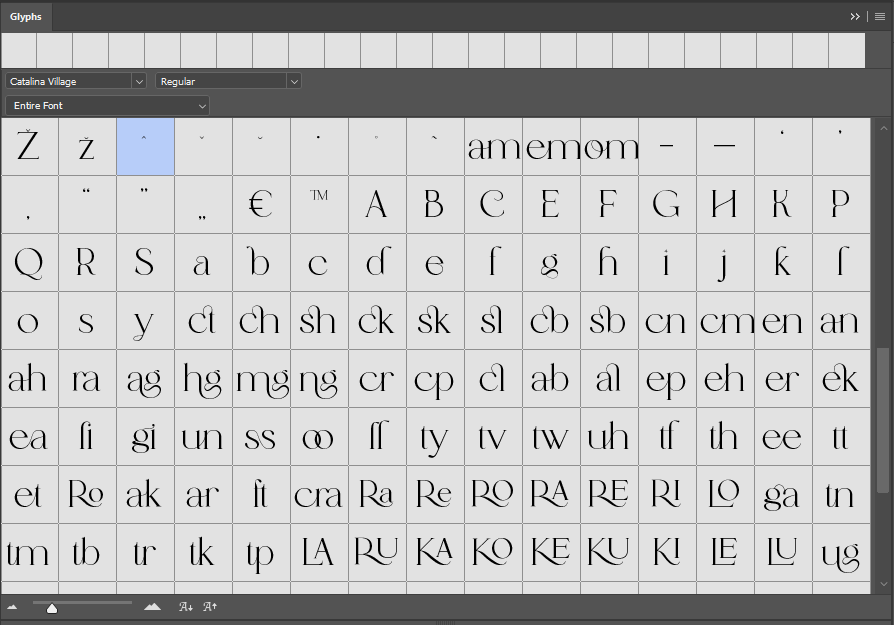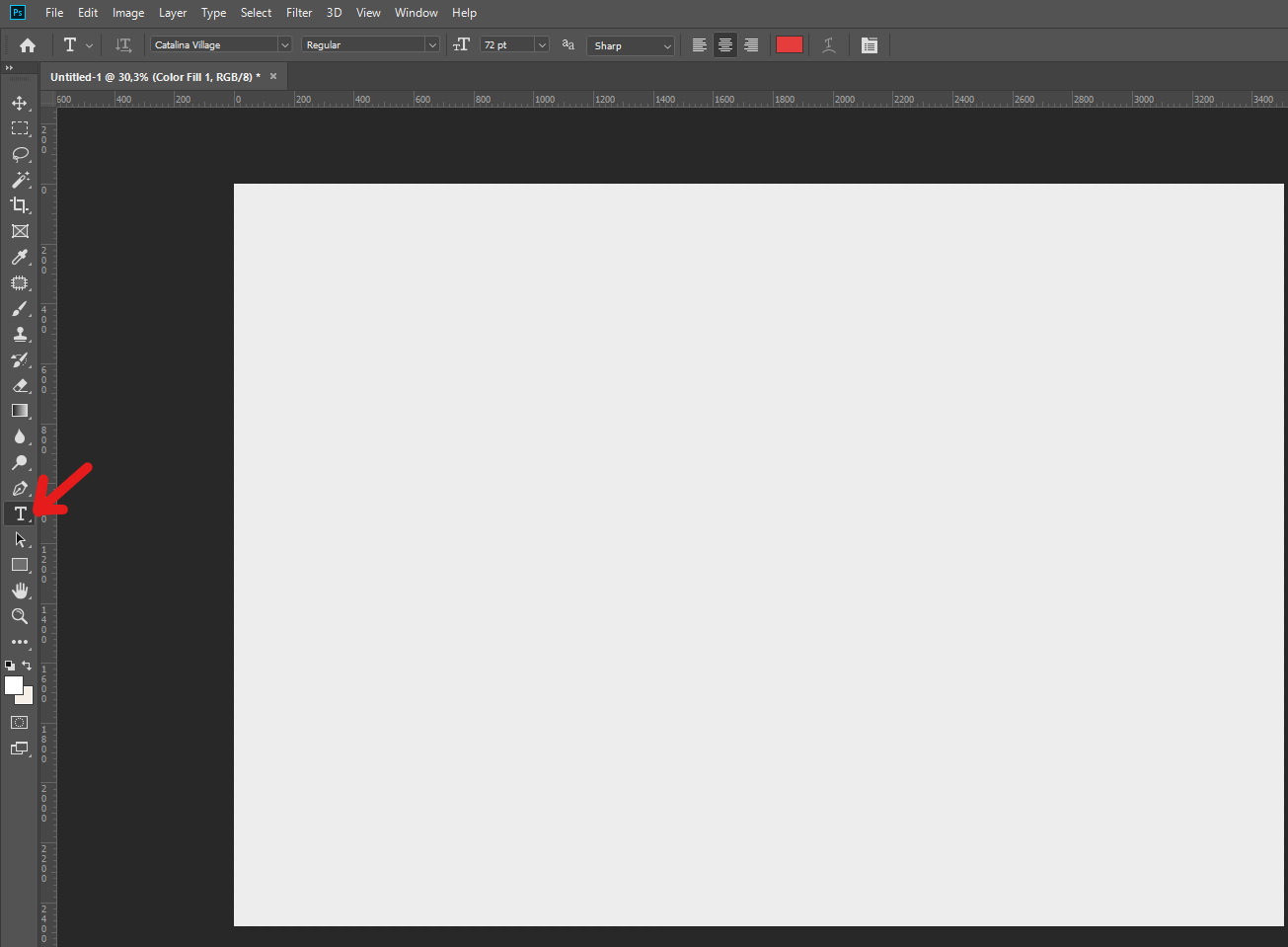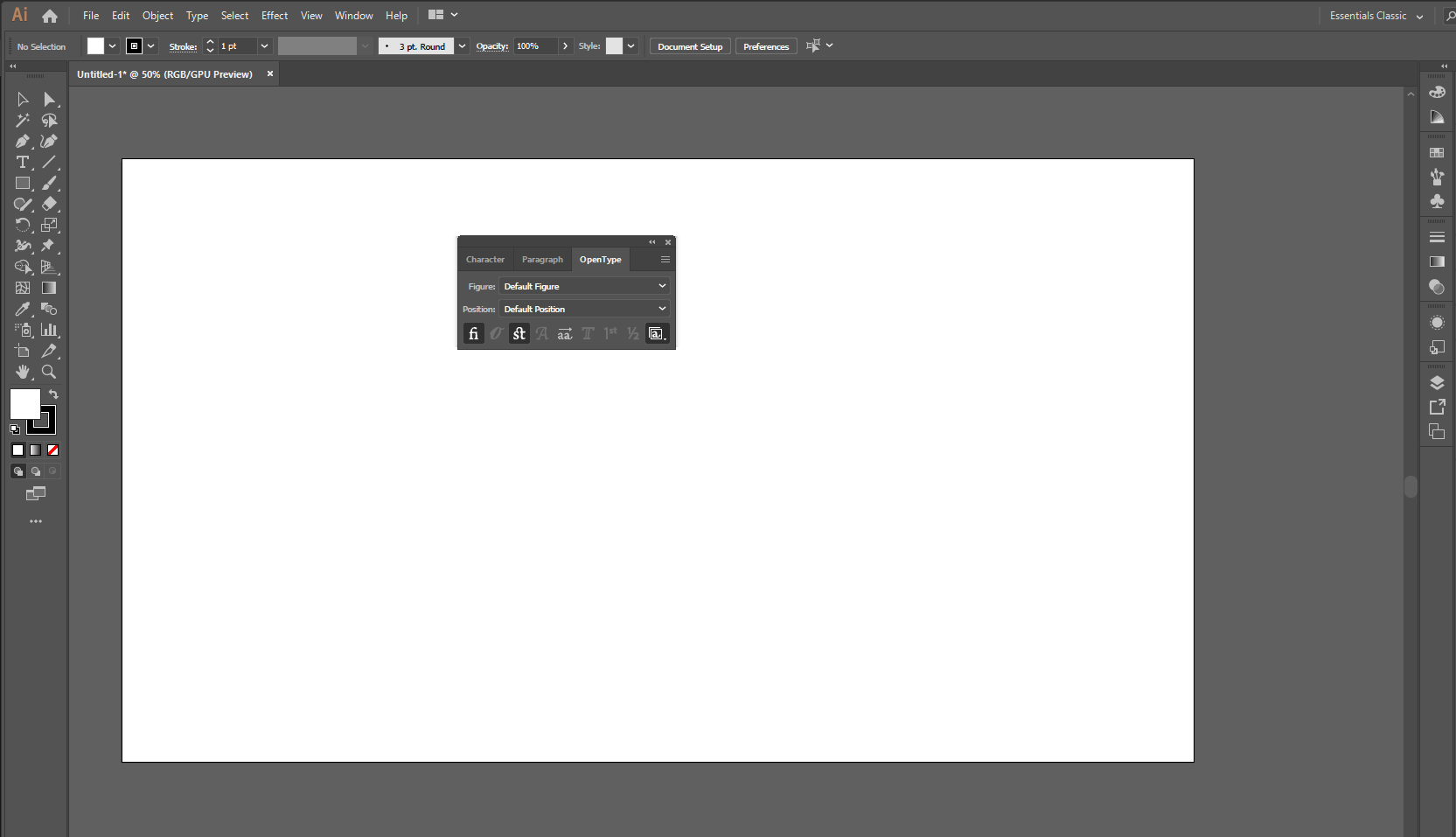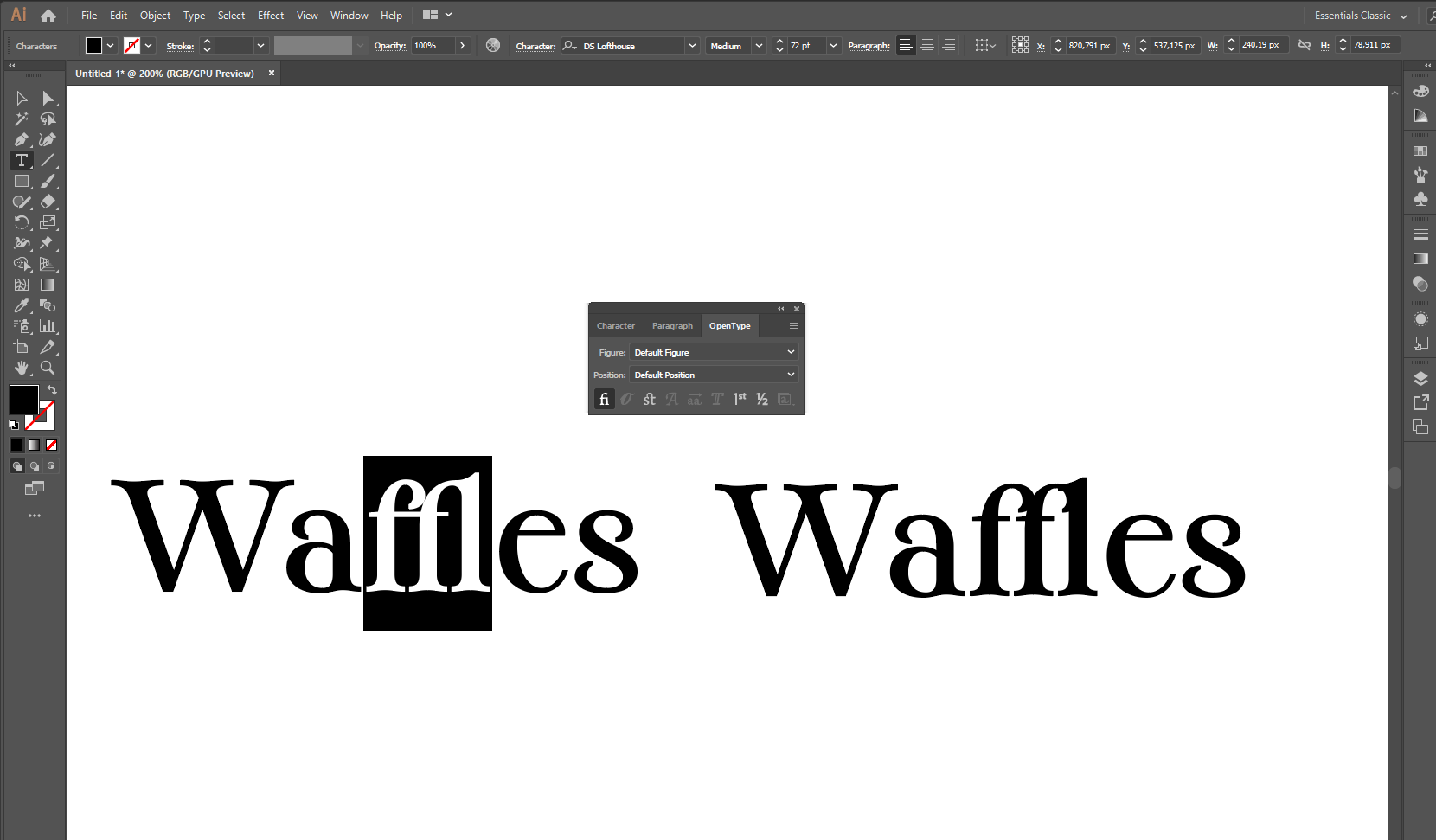
How to Use Font Ligatures in Photoshop & Illustrator – Complete Step-by-Step Tutorial
Typography is more than just picking a nice font — it’s about how letters interact with each other. One of the easiest ways to elevate your text design is by using font ligatures. These small but powerful features can make your type look more polished, natural, and unique.
In this tutorial, I’ll walk you through how to use ligatures in Adobe Photoshop and Adobe Illustrator, explain what they are, why they matter, and share some pro tips to get the most out of them.
Whether you’re a beginner or a seasoned designer, by the end of this guide you’ll be ready to use ligatures like a pro.
What Are Font Ligatures?
Ligatures are special character combinations designed to make text flow more smoothly. Instead of two letters appearing separately, they are connected into one beautiful glyph.
For example, in many script fonts, the letters “th” or “fl” are drawn together to avoid awkward gaps. In display or decorative fonts, ligatures can even add stylish flourishes for a more custom feel — something you’ll find in our signature script fonts collection.
Why use ligatures?
• They improve readability by smoothing awkward letter collisions.
• They add personality and style to your typography.
• They make your text look like it was hand-lettered by a calligrapher.
illustration: Before & After example showing text without ligatures vs. with ligatures
Step-by-Step: Using Ligatures in Photoshop
Step 1: Open Your Document
Open your Photoshop project or create a new one. Make sure your font supports ligatures (not all fonts do). Many OpenType fonts in our shop include both standard and decorative ligatures.
Step 2: Select the Type Tool
Click the Type Tool (T) from the toolbar and select the text you want to apply ligatures to.
Step 3: Open the Character Panel
Go to the top menu and choose:
Window → Character
This will open the Character Panel, where most typography settings are located.
Step 4: Enable Ligatures
In the Character Panel, click the small menu icon in the top-right corner and make sure “Ligatures” is checked.
Once enabled, Photoshop will automatically replace eligible letter combinations with their ligature forms.
Step 5: Fine-Tune Your Typography
You can combine ligatures with other typography settings like tracking, kerning, or even swashes if your font supports them. Play around until your design feels balanced.
Step-by-Step: Using Ligatures in Illustrator
Illustrator works similarly to Photoshop, but with a few interface differences.
Step 1: Open or Create Your Document
Import your project or create a new artboard. Select the Type Tool (T) and type your text.
Make sure your font supports ligatures (not all fonts do). Many OpenType fonts in our shop include both standard and decorative ligatures.
Step 2: Open the OpenType Panel
Go to:
Window → Type → OpenType
This panel is where Illustrator keeps all advanced font features, including ligatures.
Step 3: Enable Ligatures
In the OpenType panel, click the “Standard Ligatures” icon. Your text will automatically update to show ligatures where available.
Step 4: Explore More Ligature Options
Some fonts include:
• Standard Ligatures → Common combinations like “fi” or “fl”
• Discretionary Ligatures → More decorative and stylistic
• Contextual Alternates → Changes glyphs based on surrounding letters
You can toggle these features on/off to see what works best for your design.
Some fonts include Standard Ligatures and Discretionary Ligatures — you can explore these features in many of our modern calligraphy fonts, such as the Rosette Script which offers an incredible 117 ligatures for natural, authentic flow.
When to Use Ligatures (and When Not To)
Ligatures are wonderful for:
• Logos → Gives a hand-crafted, unique look.
• Headlines & Posters → Adds extra flair to large text.
• Invitations or Branding Materials → Enhances elegance and personality.
Avoid overusing ligatures in:
• Body text at small sizes → Can affect readability.
• Technical documents → Where precision and clarity matter most.